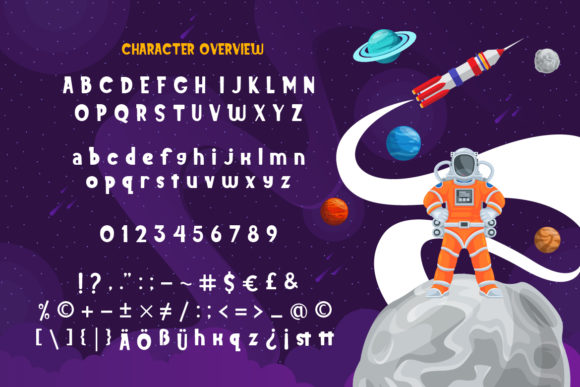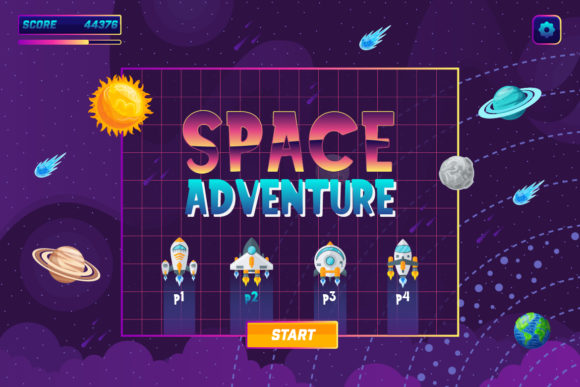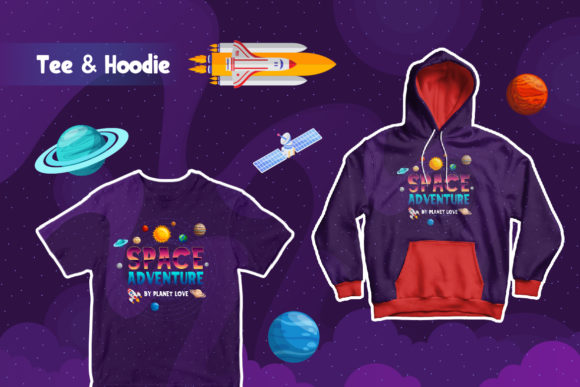
Introduction to Planet Love Font
Have you ever stumbled upon a font that brings a smile to your face? For designers working on children’s projects, that moment of creative joy is often just a font away. One such treasure is the Planet Love Font – a bold and fun display font that’s sure to captivate young audiences.
Whether you’re creating a colorful poster, designing a kid-friendly website, or crafting a playful social media graphic, the Planet Love Font is an excellent choice. This free download is perfect for designers seeking a high-quality design resource that can elevate their creative project to new heights. With its transparent background, the Planet Love Font is versatile and easy to work with, making it a valuable addition to any designer’s toolkit.
For designers who specialize in children’s projects, the Planet Love Font is a game-changer. Its fun and playful style is sure to delight kids, while its professional design ensures that your work looks polished and engaging. With the Planet Love Font, you’ll be able to bring your creative vision to life in a way that’s both fun and effective.
Key Features of Planet Love Font
- Unique and playful design: The Planet Love Font is a beautiful, hand-drawn font perfect for creative projects and design resources.
- Perfect for creative projects: With its whimsical and playful design, the Planet Love Font is ideal for children’s books, greeting cards, and other creative projects.
Honest Review: Planet Love Font
I recently came across the Planet Love Font, and I’m excited to share my thoughts on this design resource. As a designer, I’m always on the lookout for high-quality fonts to elevate my creative projects.
- Unique and playful design: The Planet Love Font offers a fresh take on traditional typography, making it perfect for projects that need a little extra oomph.
- Limited character set: The Planet Love Font has a limited character set, which may not be suitable for projects that require a wide range of characters.
Overall, I’m impressed with the Planet Love Font, and I think it’s a great addition to any designer’s toolkit. While it may have some limitations, its unique design and high-quality graphics make it a valuable resource for creative projects. I’ll definitely be using it in my future designs!
For optimal results, use the Planet Love Font in conjunction with other high-quality design resources. Experiment with different font sizes, colors, and combinations to create a unique and eye-catching design.